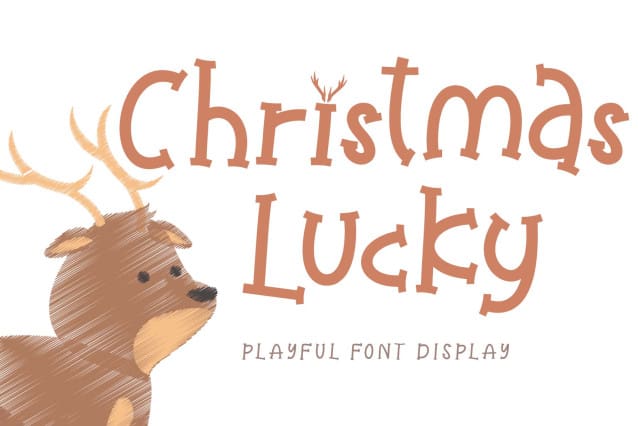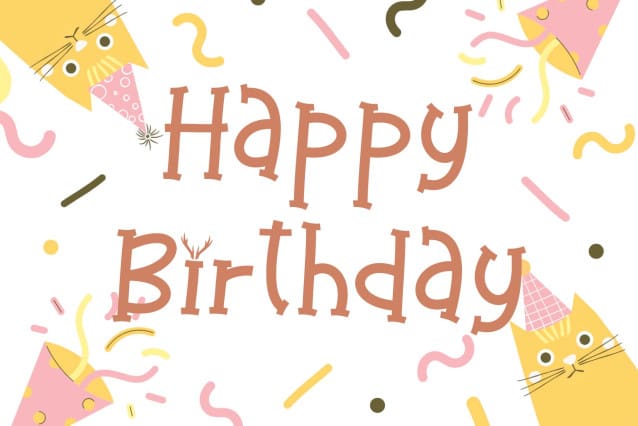
Christmas Lucky Font
Christmas Lucky Font is a cute and cheerful display font. It comes with capital letters, lowercase letters, numbers, punctuation, and multilingual support. It is perfect for use on Christmas, Easter, banners, posters, prints, branding, stickers, logos, birthdays, parties, Halloween, comics, cartoons, etc.